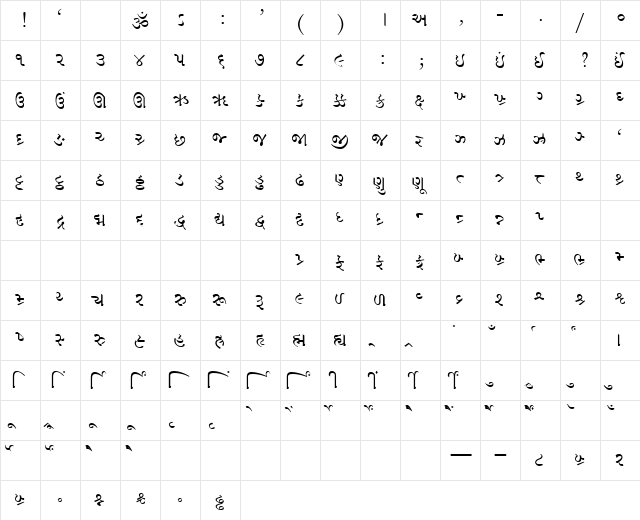
AkrutiGujKavita Normal Font Preview
AkrutiGujKavita Normal
AkrutiGujKavita Normal Font Details
Design Context for AkrutiGujKavita Typeface
AkrutiGujKavita is a composed and adaptable typeface that performs quietly and consistently across a wide range of design contexts.
Pro Tip: Use AkrutiGujKavita in both headline and body roles to test its range before committing to a single application.